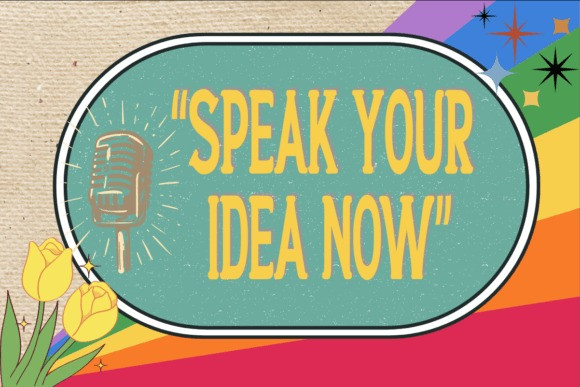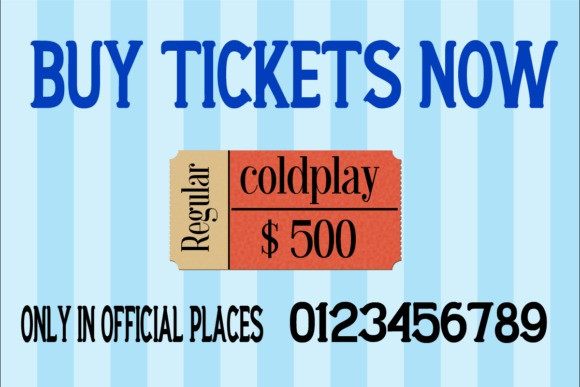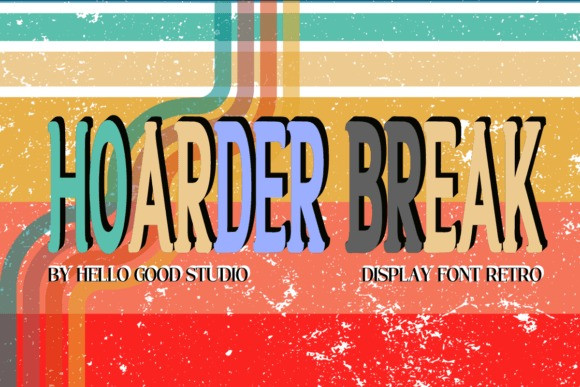
Hoarder Break Font
Hoarder Break Font is a unique retro display font, a mixture of slab serif on the uppercase and also script on the lowercase, accompanied by unique characters that make your design unique and different from what has existed so far. Make sure you have this font collection on your computer so you will have alternatives. choice of font design for your work